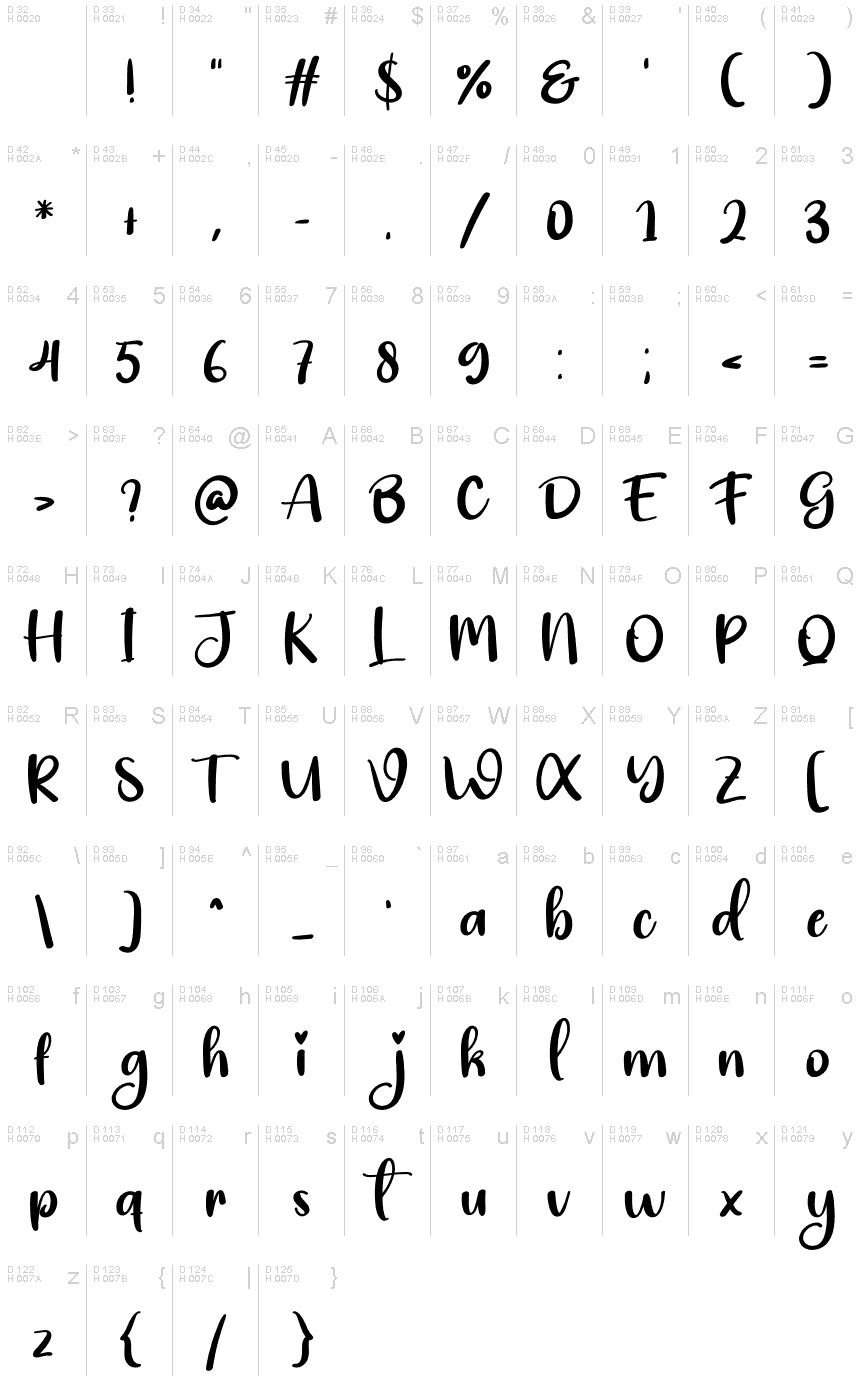
Welcome Signature
Welcome Signature, designed by Scratchones, is a captivating handwritten font that exudes elegance and style. With its authentic signature-style appearance, this font adds a feminine touch to any project.
Its fluid strokes and delicate curves make it perfect for creating beautiful wedding invitations or designing sophisticated logos for fashion brands. Whether you are working on branding materials for a luxury spa or crafting personalized stationery, Welcome Signature will bring an air of refinement to your designs.